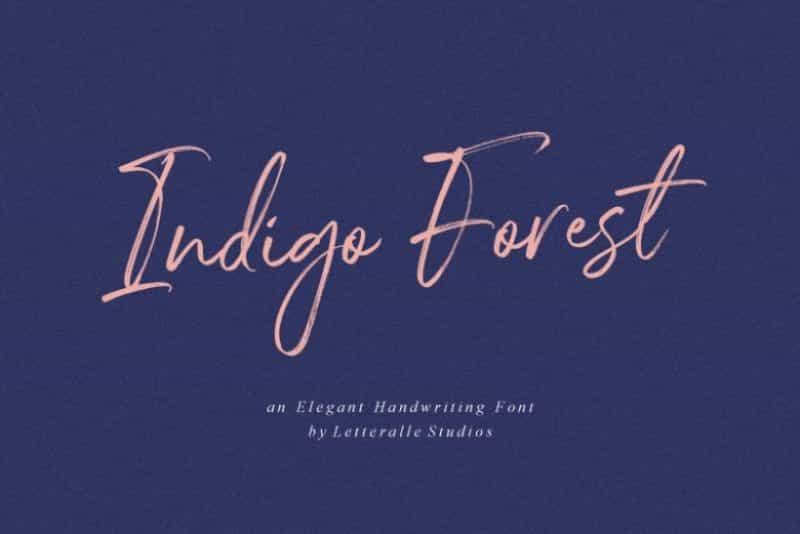
Discover Indigo Forest Script Font, part of the Brush Handwritten collection—a versatile and unique font perfect for adding a personal touch to your projects. Download it for free and enjoy crafting designs with style, from invitations to social media posts. This font is available exclusively for personal use, giving you the freedom to create without limits. Unlock your creativity with Indigo Forest Script Font today!
Introducing! Indigo Forest Font! a cursive and friendly brush font. Indigo Forest is perfect for designing your products like branding, social media, merchandise, ads, book title, packaging, etc.